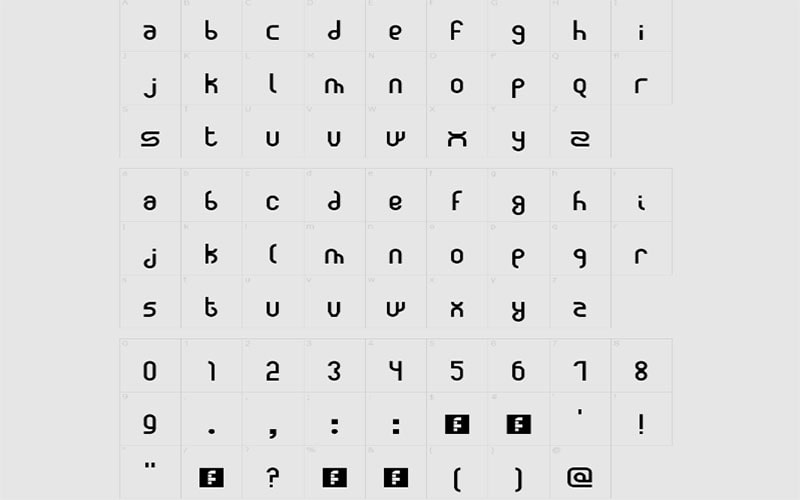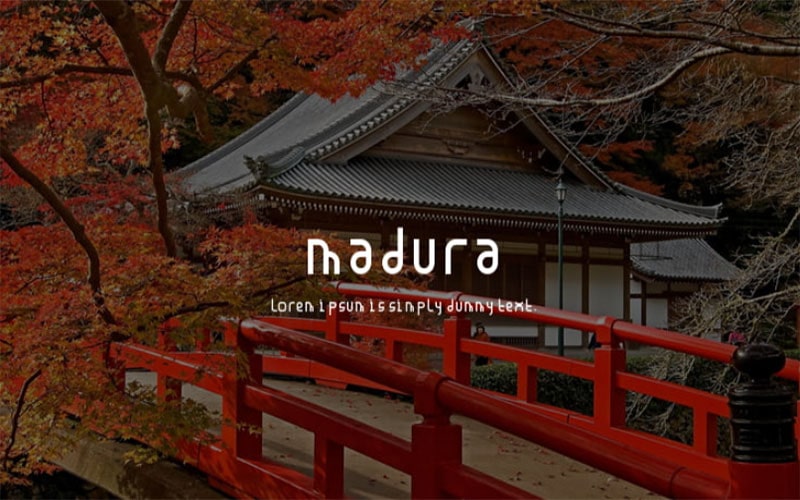
The Madura Font is a contemporary typeface known for its clean lines, versatility, and modern appeal. Whether used for digital media, print, or branding, it provides a professional look that suits a wide range of applications.
The Madura Font was designed by Adien Gunarta, a designer known for creating modern and functional typefaces that cater to the needs of contemporary design projects.
Gunarta’s work on Madura emphasizes clarity and versatility, ensuring that the font is suitable for a variety of uses while maintaining a clean and modern aesthetic.
Designed with precise kerning and spacing to maintain readability and visual harmony, even at smaller sizes. Includes a comprehensive set of uppercase and lowercase letters, numerals, punctuation marks, and special symbols.
Madura is available in several styles such as Regular, Bold, Italic, and Bold Italic, allowing it to adapt to different design needs. These styles make Madura a versatile font.
It can be used in numerous applications such as enhancing the readability and visual appeal of websites and online content. Ideal for creating modern and professional brand identities.
Classic sans-serif fonts are known for their clean and modern look, similar to Madura such as Bustin Jieber Font designed by Chequered Ink, and Barriecito Font made by Omnibus Type.
With the Madura Font, you can achieve a sleek and contemporary look that resonates with today’s audiences, making your designs not only visually appealing but also highly effective.